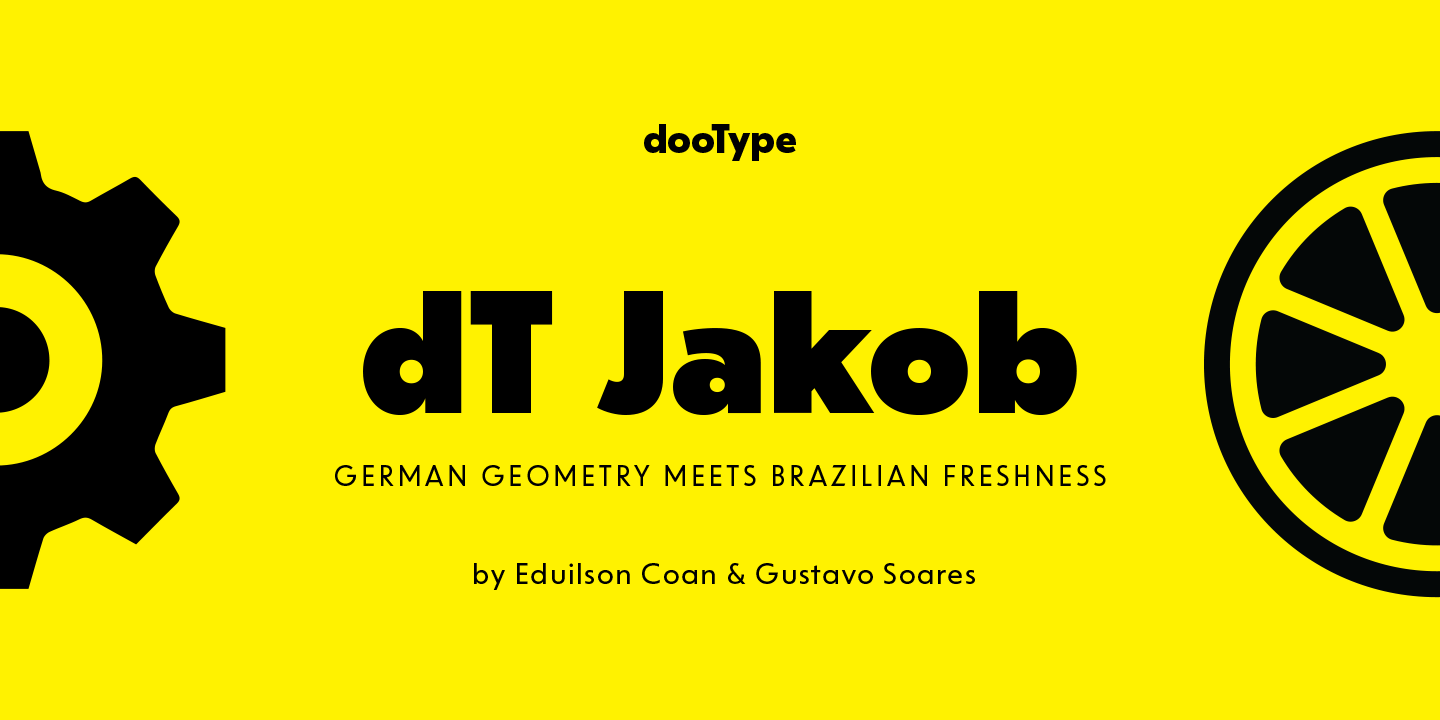
dT Jakob Font is ideal for Scandinavian design studios, minimalist furniture branding, Nordic lifestyle magazines, modern architecture firms, clean tech company logos, sustainable design materials, contemporary art galleries, and progressive cultural institutions.
This font is exciting because it embodies the pure essence of Scandinavian design philosophy with clean, functional letterforms that celebrate simplicity, clarity, and purposeful beauty. The dT Jakob Font captures the Nordic spirit of hygge and lagom, transforming ordinary text into serene expressions of understated elegance and mindful living that resonates with contemporary audiences seeking authentic simplicity.
The dT Jakob Font family includes Nordic-inspired variations such as Thin, Light, Regular, Medium, Bold, Italic variations, Condensed, and Extended versions, providing Scandinavian designers with comprehensive tools to create authentic minimalist typography that reflects the timeless appeal of Nordic design principles and lifestyle values.
Embrace Nordic simplicity with dT Jakob Font Free Download that brings Scandinavian clarity to every design project. This thoughtfully crafted typeface combines minimalist aesthetics with practical functionality, making it perfect for lifestyle brands, design studios, and organizations celebrating sustainable living and mindful consumption. The font's clean character design ensures your message feels calm and purposeful while maintaining excellent readability across all applications. Whether you're developing sustainable brand identities, creating mindful lifestyle content, or designing materials that celebrate Nordic values, dT Jakob Font delivers the serene typography that connects with audiences seeking authentic simplicity and meaningful design. Its versatile nature works beautifully across digital and print media while preserving the peaceful clarity that makes Scandinavian communications feel genuinely restorative and thoughtfully designed for modern life that values quality over quantity and substance over superficiality.